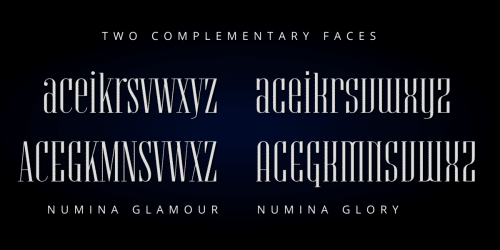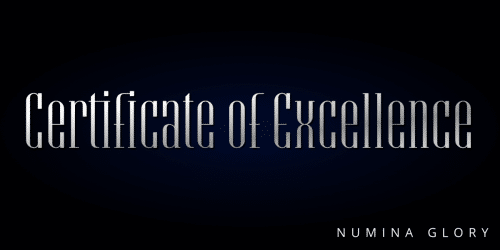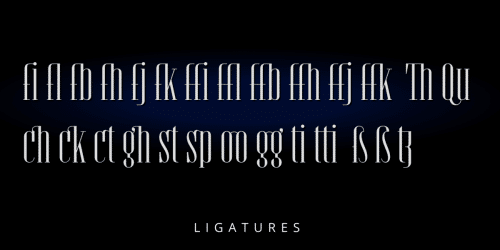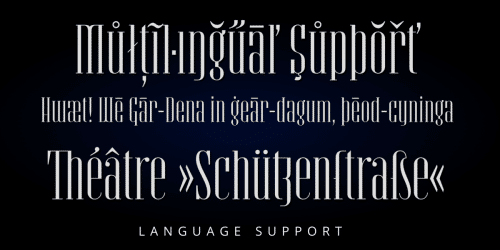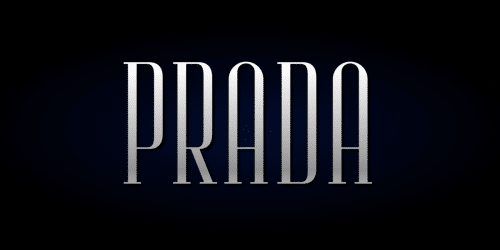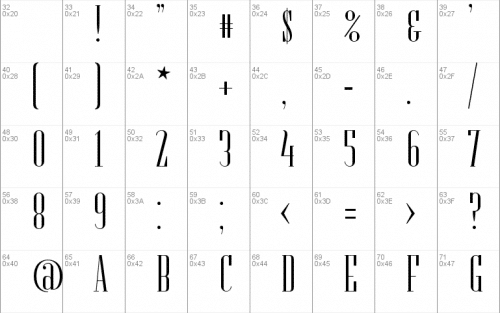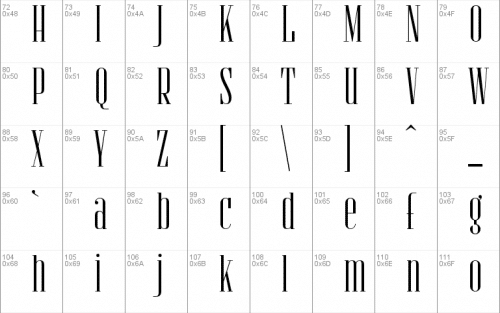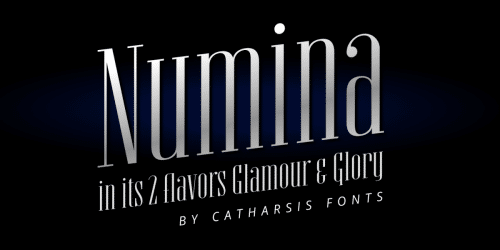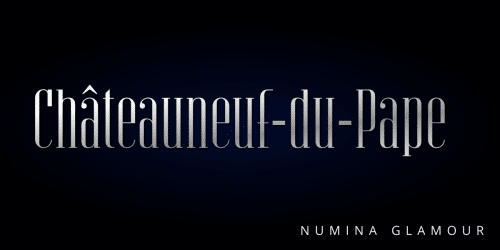
Numina is an elegant, dignified, highly condensed modern display family comprising two complementary faces.
Numina Glory capitalizes on the family’s strong, relentless vertical texture, eschewing diagonals in favor of robust pillars, whereas Numina Glamour opts for more traditional letterforms for improved legibility and a classy, airy grace. Both faces are well-suited for headlines, logos, block quotes, and editorial work.